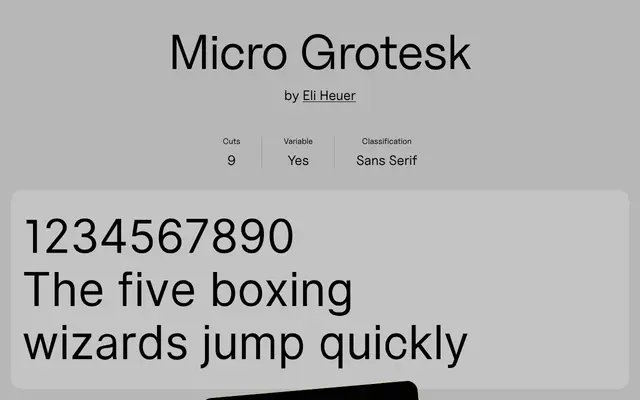
Micro Grotesk
A nine-cut grotesque sans by Eli Heuer, available with a variable font option and released under the SIL Open Font Licence for free commercial use.
Designed by Eli Heuer and distributed through Uncut, Micro Grotesk offers nine cuts including a variable font, covering a range of weights within a grotesque framework. The SIL Open Font Licence permits commercial use, modification and redistribution, making it an accessible option for a wide range of projects. The family suits everyday typesetting and interface work where a clean, unfussy grotesque is required.
Classified as Sans Serif on the page; the name and typical grotesque conventions place it firmly in the grotesque subcategory.